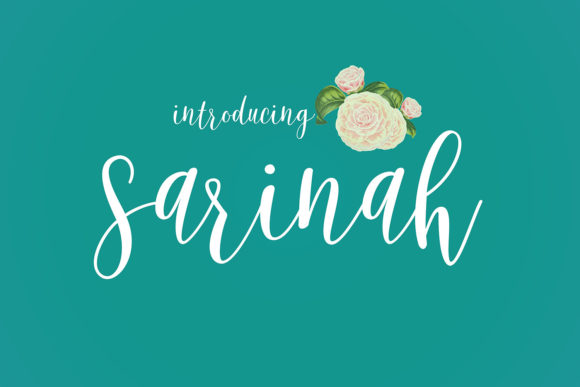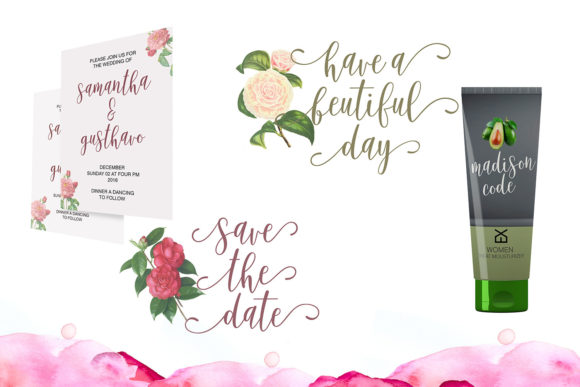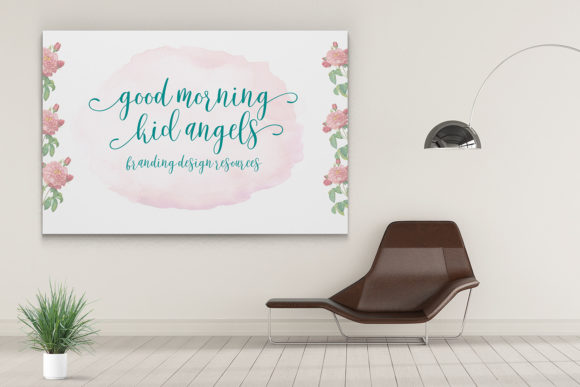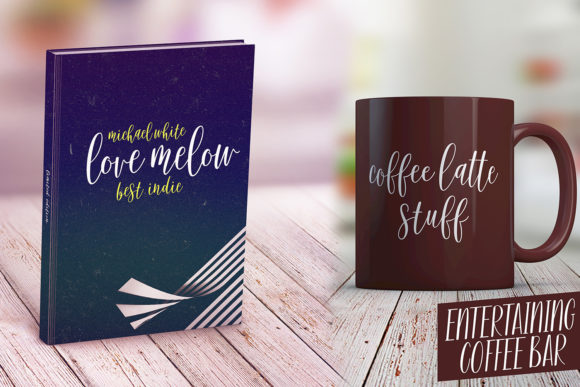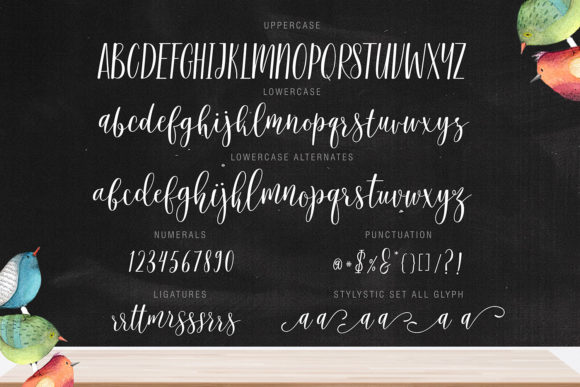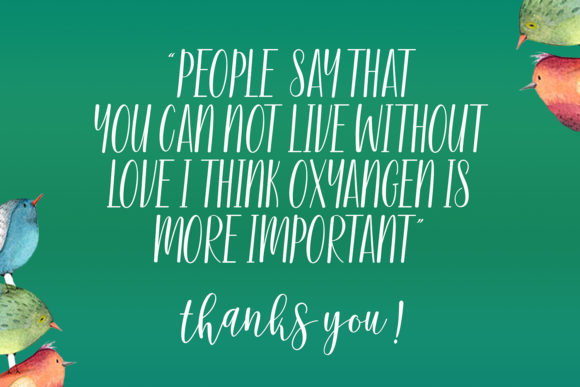
Sarinah Script Font
About Sarinah Script Font
Sarinah is a well-balanced and cursive script font that feels trendy, natural, and gentle. Take advantage of this unique font, and use it to highlight your creative projects such as wedding invitations, banners, marketing materials, blog designs, and more.